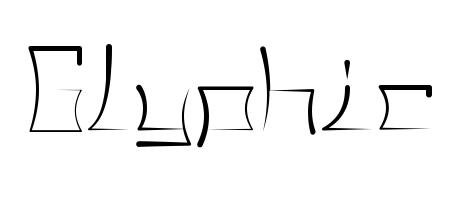
Glyphic
By Donald Hunt
Glyphic: A bold, futuristic typeface. Its characters are sharp, angular, and seem almost mechanically drawn. They feature strong vertical and horizontal lines, with occasional curves adding a hint of organic form to the otherwise rigid structure. The overall feel is clean, modern, and slightly dystopian.